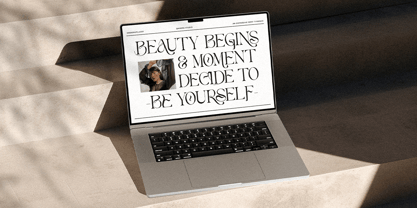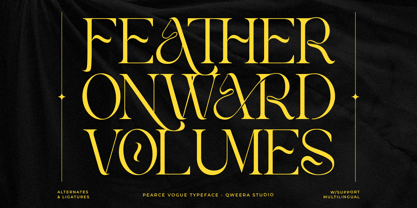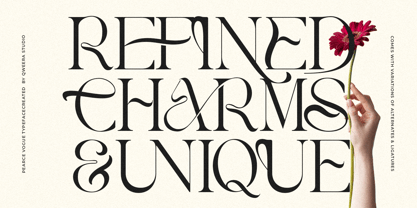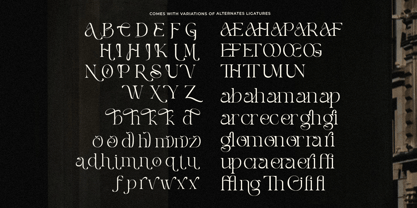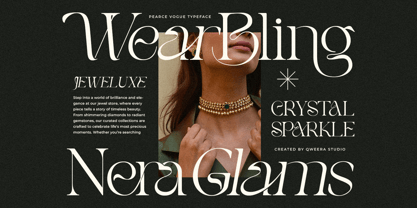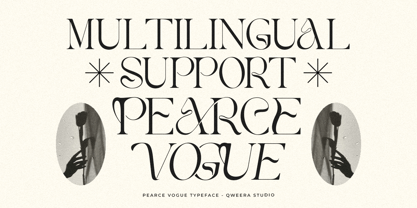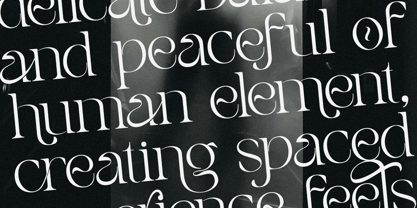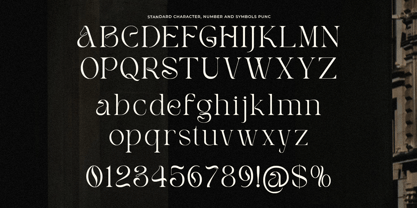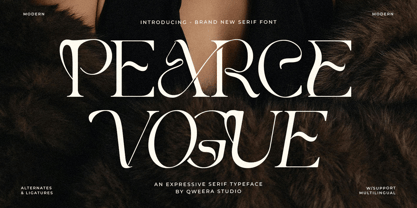
Pearce Vogue
by Qweera Studio
The Pearce Vogue Font Family was designed by Idhham Cholid Rikzano Yahya and published by Qweera Studio. Pearce Vogue contains 2 styles and family package options.
Pearce Vogue - Luxury Decorative Serif Font
Pearce Vogue is a luxurious decorative serif font designed to elevate your creative projects. This elegant typeface features unique details with regular and italic versions, stylish alternates, and ligatures for effortless customization.
Perfect for branding, posters, magazines, and print designs, Pearce Vogue adds a sophisticated and modern touch to your work. With its bold, stylish character, this font is the ideal choice for creating stunning visuals that captivate attention.
• Regular & Italic
• All Multilingual symbol
• Opentype features ( ligature, alternate )
Multilingual character supports : (Afrikaans, Albanian, Catalan, Croatian, Czech, Danish, Dutch, English, Estonian, Finnish, French, German, Hungarian, Icelandic, Italian, Lithuanian, Maltese, Norwegian, Polish, Portuguese, Slovenian, Spanish, Swedish, Turkish, Zulu)
Designers: Idhham Cholid Rikzano Yahya
Publisher: Qweera Studio
Foundry: Qweera Studio